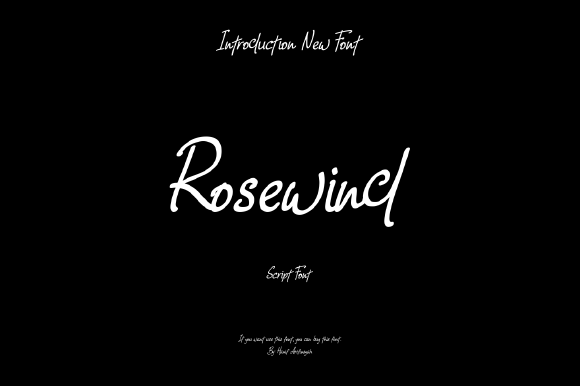
Journey through a realm of elegance and discover the Rosewind Script Font, a beautiful creation by hanifarifinsyah. This exquisite font captures the essence of handwritten artistry, adding a personal touch to your designs.
With its graceful curves, sweeping lines, and intricate details, the Rosewind Font is a testament to the enduring beauty of traditional calligraphy. Imagine your words flowing onto the page, each letter a delicate stroke of ink, imbued with a sense of timeless beauty.
The Rosewind Font is not just a collection of characters; it's an invitation to express your creativity and elevate your designs to new heights. Whether you're crafting wedding invitations, designing logos, or creating stunning social media graphics, this font will add a touch of elegance and sophistication to your work.
Dive into the world of Rosewind and let your imagination bloom. With its plethora of alternate characters and OpenType features, you'll have endless possibilities to customize your designs and create something truly unique.